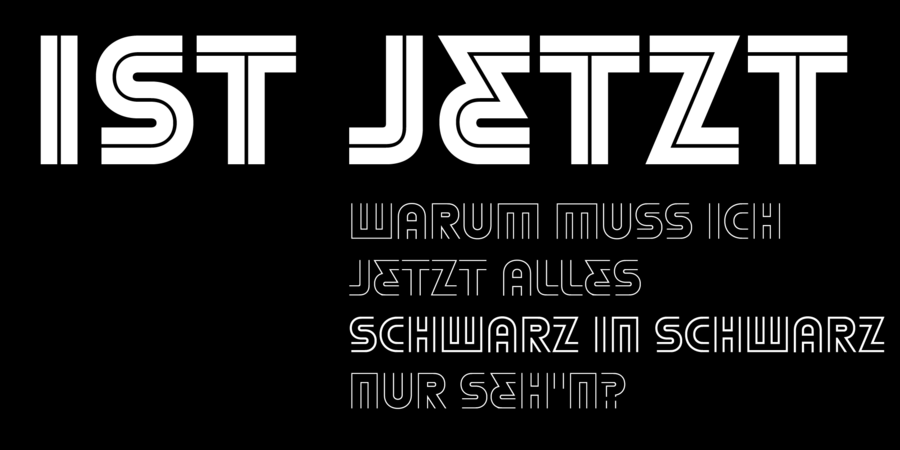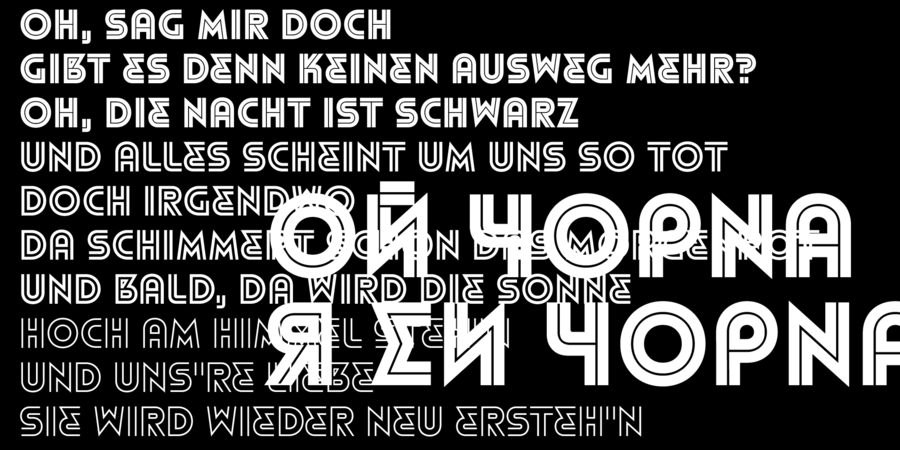
DR Refunk is a striped typeface in the traditions of modernism. Variable multilingual font family with Latin, Greek and Cyrillic. The typeface was designed by Dmytro Rastvortsev in 2023.